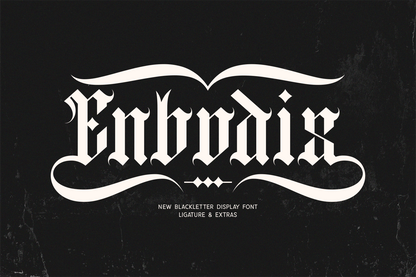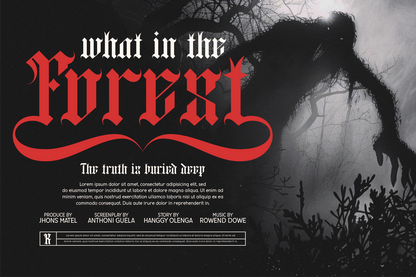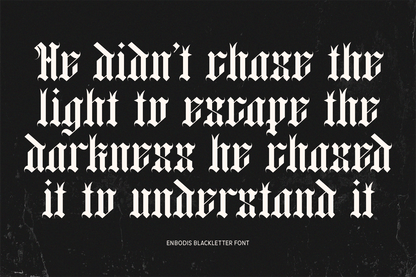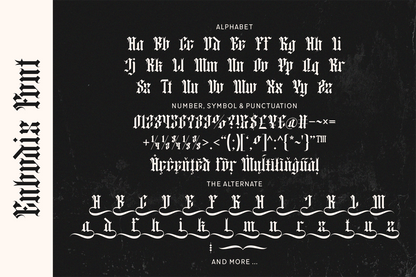
Enbodis is a striking blackletter display font with sweeping ligatures and bold symmetry. Ideal for metal band logos, event posters, and dark editorial projects demanding visual impact.